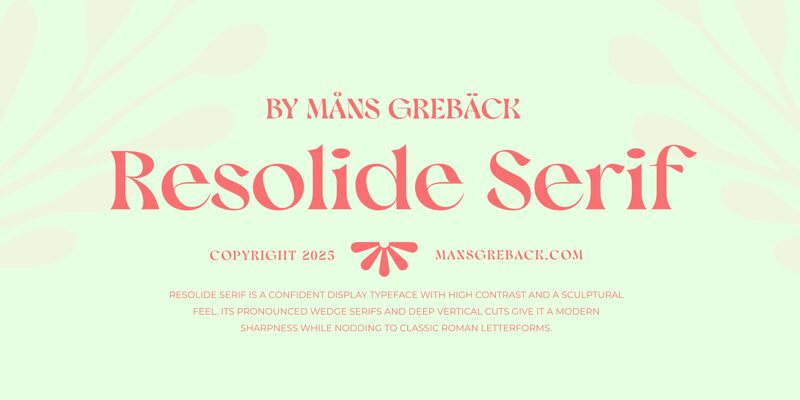
Resolide Serif font by Måns Grebäck is a free serif font with confident and refined aesthetics. The font is sculptural and modern with sharp, classic influences. Resolide Serif brings a unique handwriting vibe and elegance combined with soft features of print type. The contrasting shapes contribute to the font’s strong character.
Resolide Serif is suitable for name signs on invitation cards, logotype designs, official event posters, brochure descriptions, and even video titling fonts. It is generally effective in people-facing designs and in all other applications where elements of elegance or smoothness are needed.
Resolide Serif is a confident display typeface that features high contrast and a sculptural feel. Its pronounced wedge serifs and deep vertical cuts offer a modern sharpness while paying homage to classic Roman letterforms. The rhythm of its forms dances between shadow and light, creating a dramatic interplay, particularly in larger sizes.